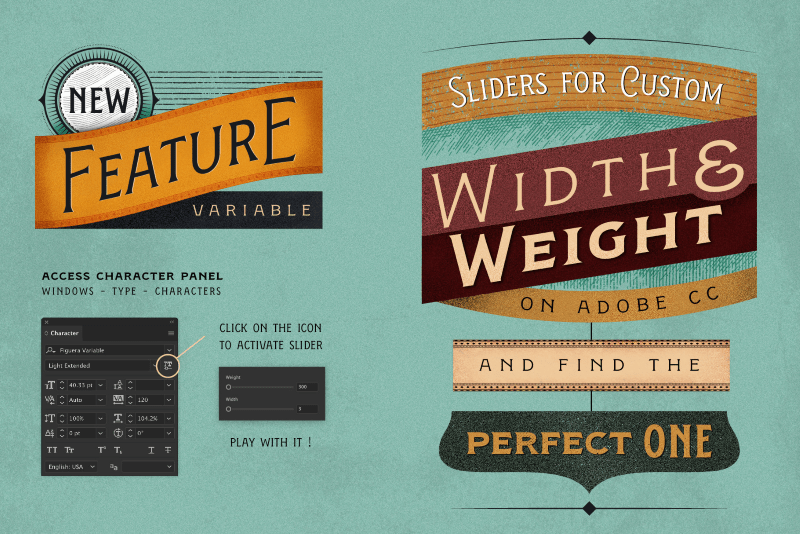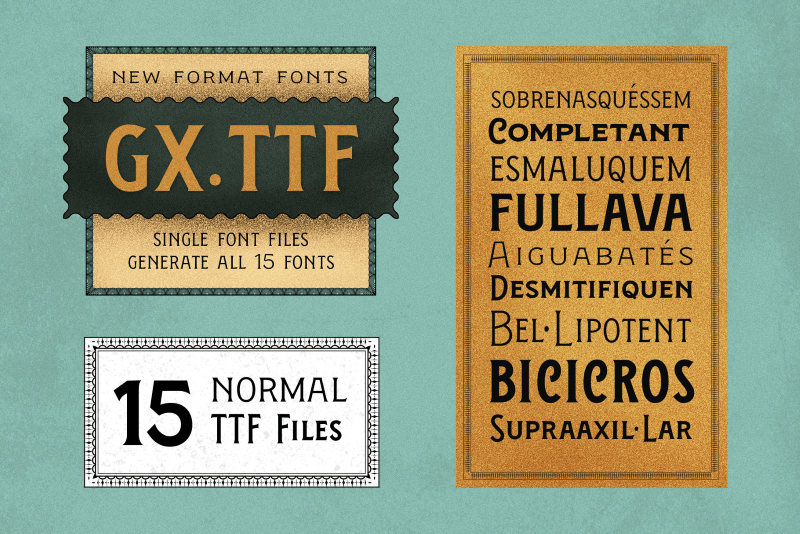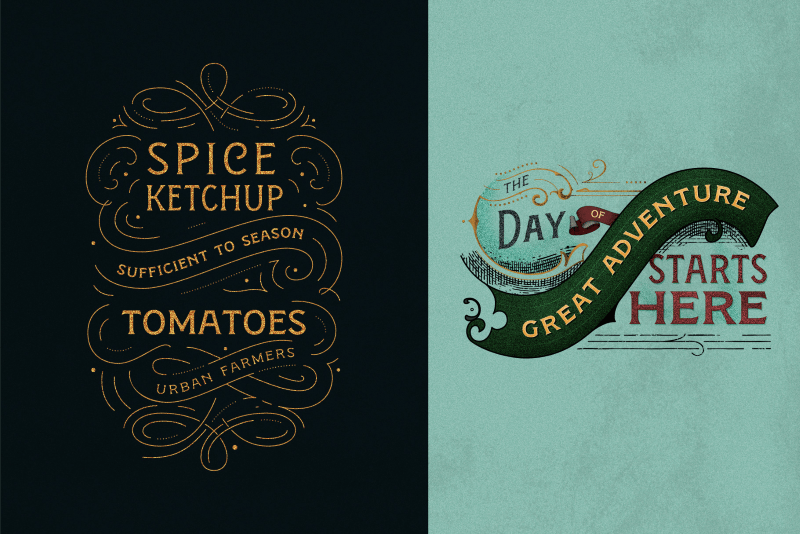
Figuera Variable Font Family – Vintage Victorian Design, 15 OTF Files & Variable TTF
Introducing Figuera, a serif variable font with a victorian design that features a neat vintage style, delivered in OTF & TTF file formats as well as a TTF variable font file to create web fonts & customize to your liking!
The font family includes 15 OTF & TTF weights from light to bold as well as regular, condensed & extended variations, providing great versatility for display compositions, posters, signage & more. The pack also includes a set of vector frame borders with a vintage design style in Ai & EPS file formats that match the font perfectly which you can use to add an extra touch of style to your compositions